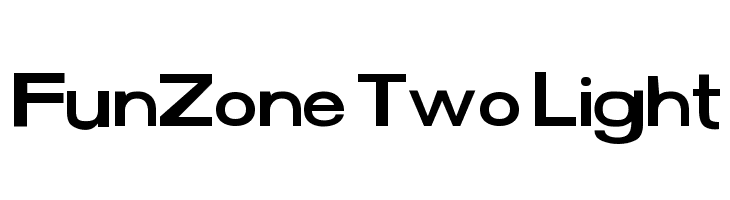
A modern, bold sans-serif font with a clean and professional look.
A bold, modern typeface with geometric lines and rounded edges.
A bold, modern sans-serif font with clean lines and a strong presence.
A bold, modern font with wide, uniform characters.